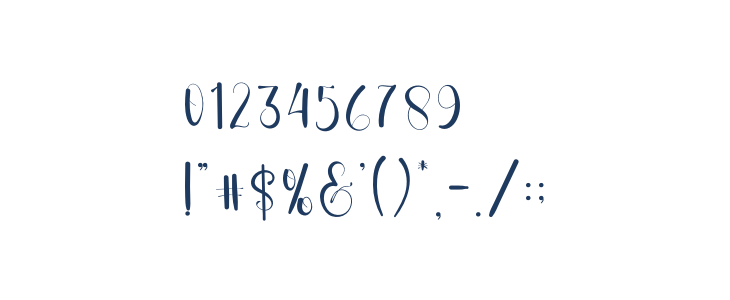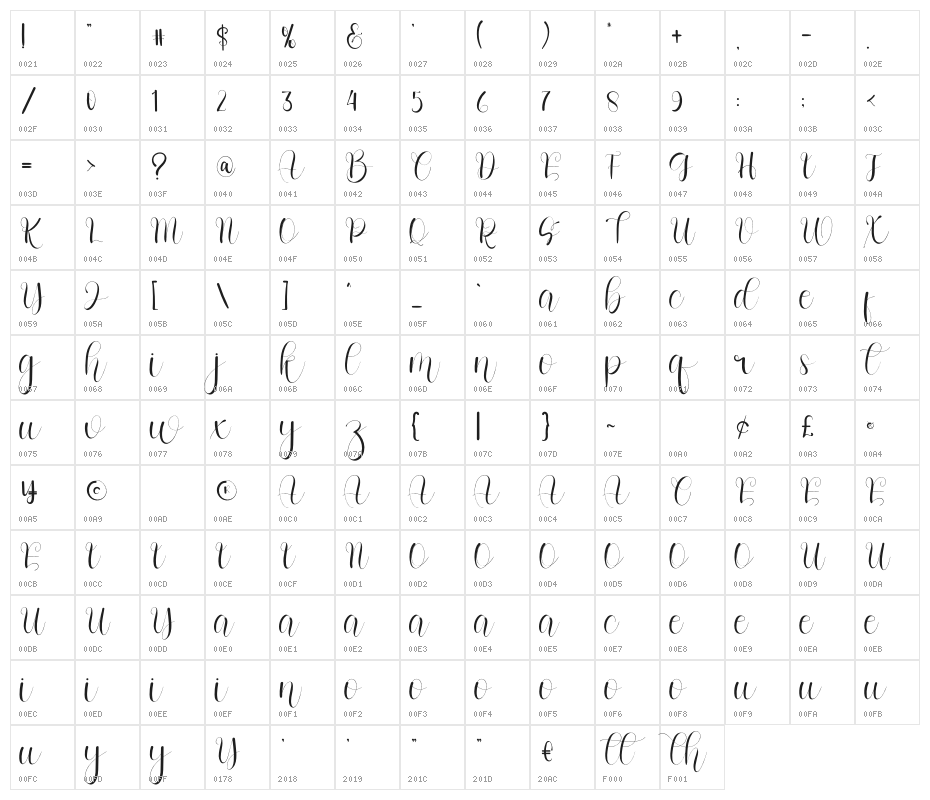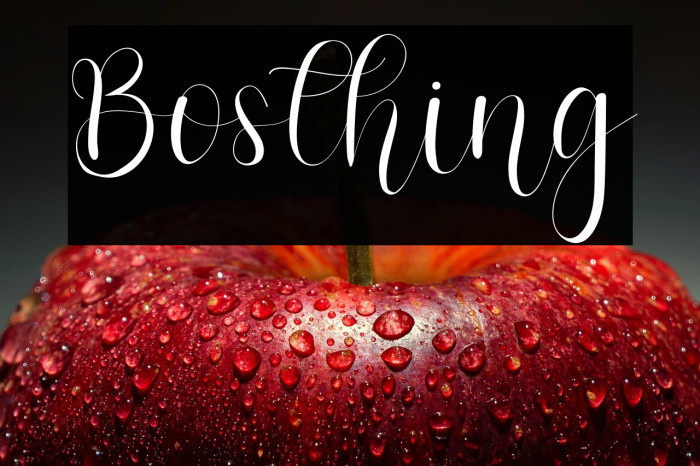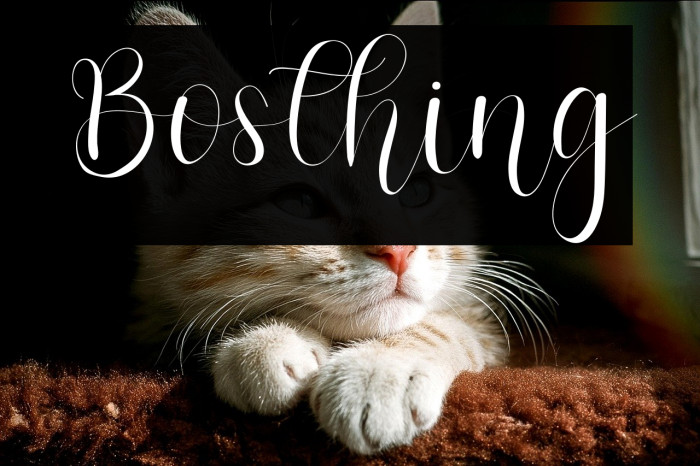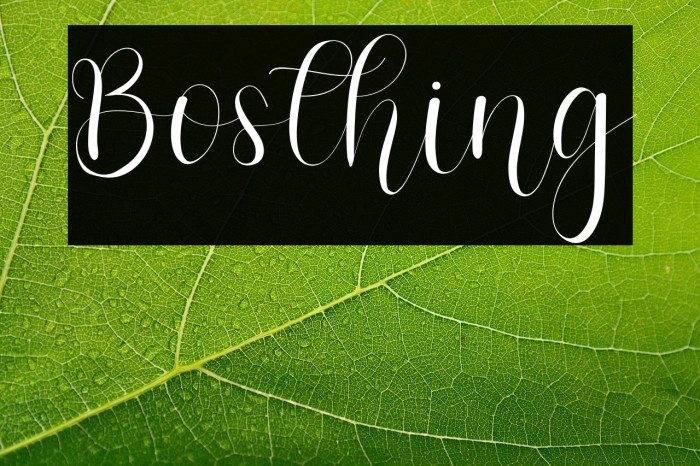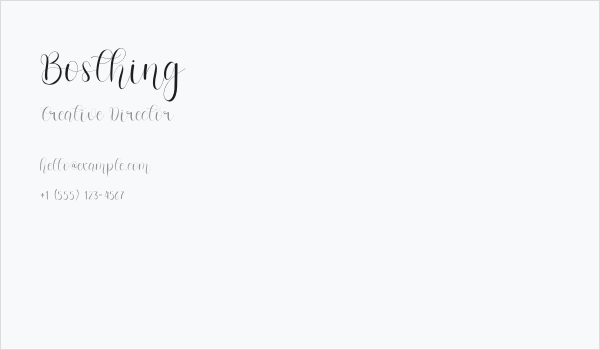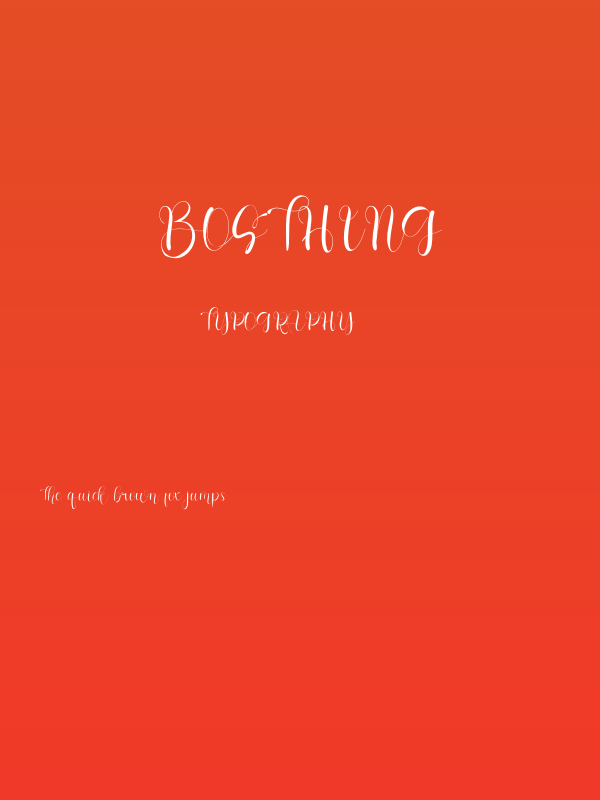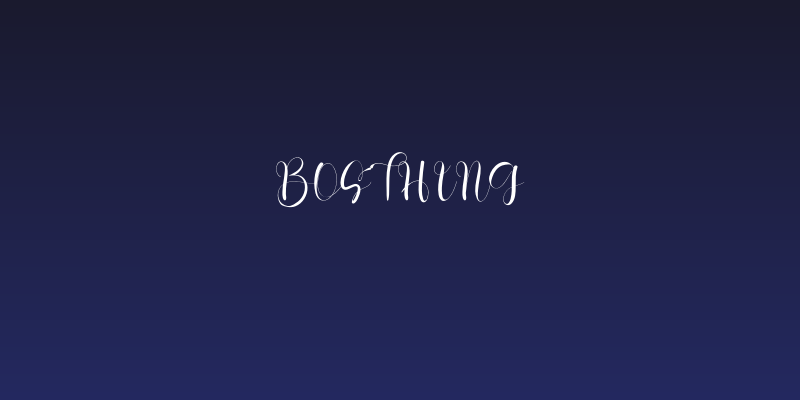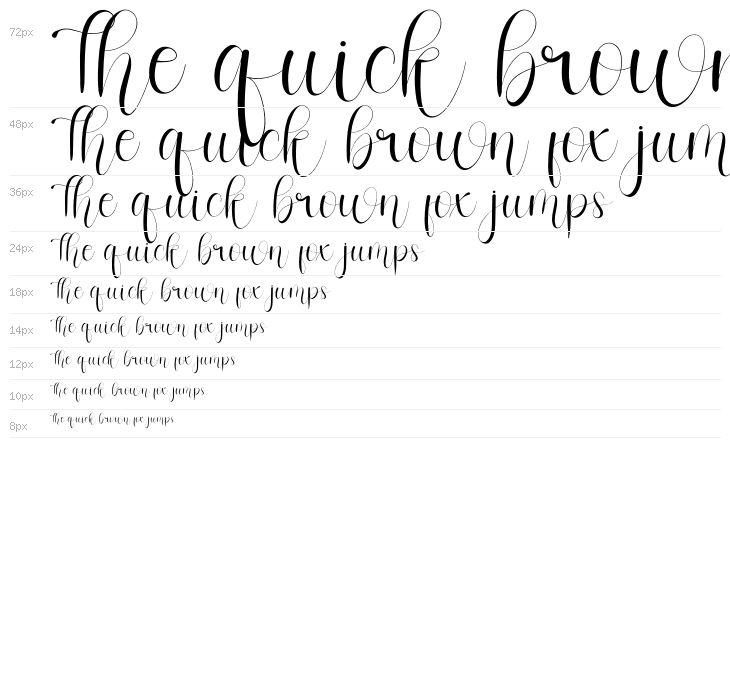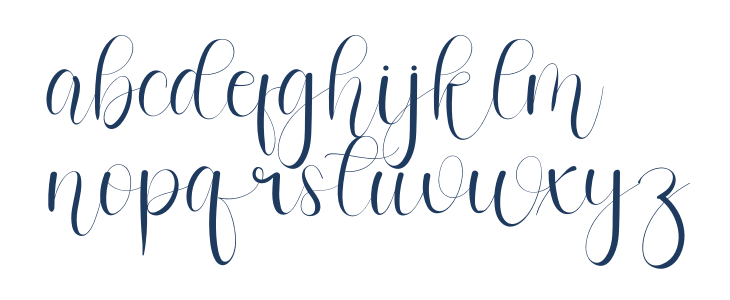
Bosthing Font
Bosthing Description
This elegant script font features flowing, interconnected letters with a graceful and sophisticated appearance. The uppercase letters are particularly ornate, with sweeping flourishes that add a touch of drama and elegance. The lowercase letters maintain a consistent style, with smooth curves and loops that enhance readability while retaining the decorative nature of the font. The numerals are clear and legible, complementing the overall aesthetic. Special characters are designed with the same attention to detail, making this font versatile for various design needs.
| Overall Style | Elegant |
| Use Case | Logos, Invitations, Decorative text |
| Proposed Projects | Ideal for wedding invitations, greeting cards, branding, and elegant logo designs. |